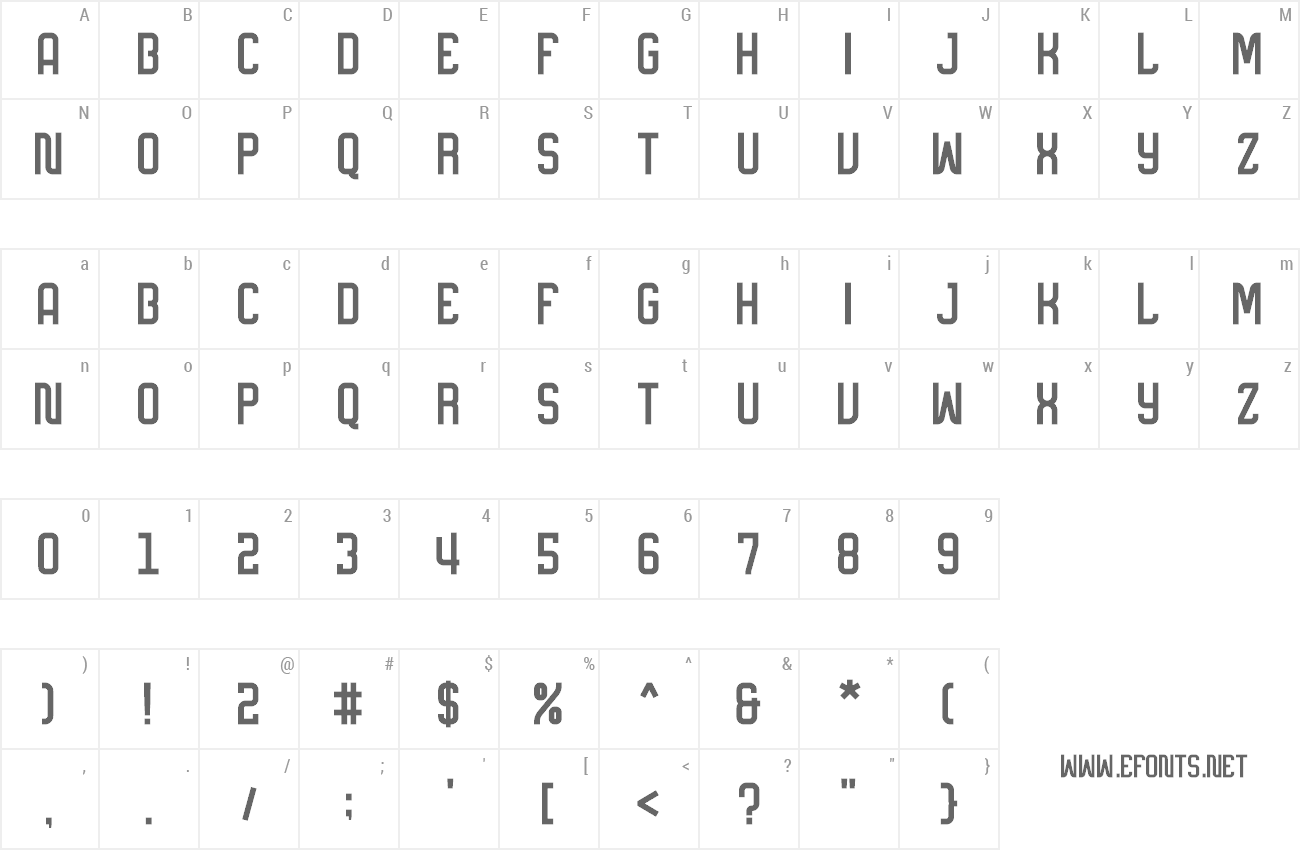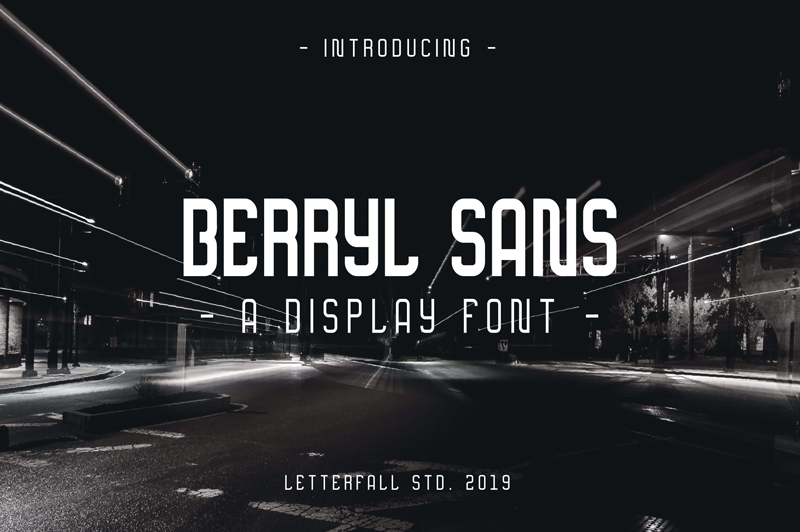
The Berryl Sans is a strong and sophisticated sans serif family. It comes in a regular and bold style which can be combined perfectly, giving you the opportunity to create multiple unique designs in an instant. It was inspired by diamonds, it�s sturdy uncompromising style is felt through the controlled letter forms and modern touches. A balance of hard lines and smooth curves. Each included can stand on its own, dynamic and authoritative in their own right It�s perfect for branding, logos, sports, magazines, films. The different weights give you full range to explore a whole host of applications, while the Berryl fonts give a real modern feel to any project. For more preview please visit my behance profile : https://www.behance.net/gallery/75500055/Berryl-Sans-Serif-Font-by-Letterfall-Std NOTE : This demo font is for PERSONAL USE ONLY! BUT any donation are very appreciated Paypal Account for donation : https://www.paypal.me/rifalfahrudin Link to Purchase Full version and commercial license https://www.creativefabrica.com/product/berryl-sans-family/ |